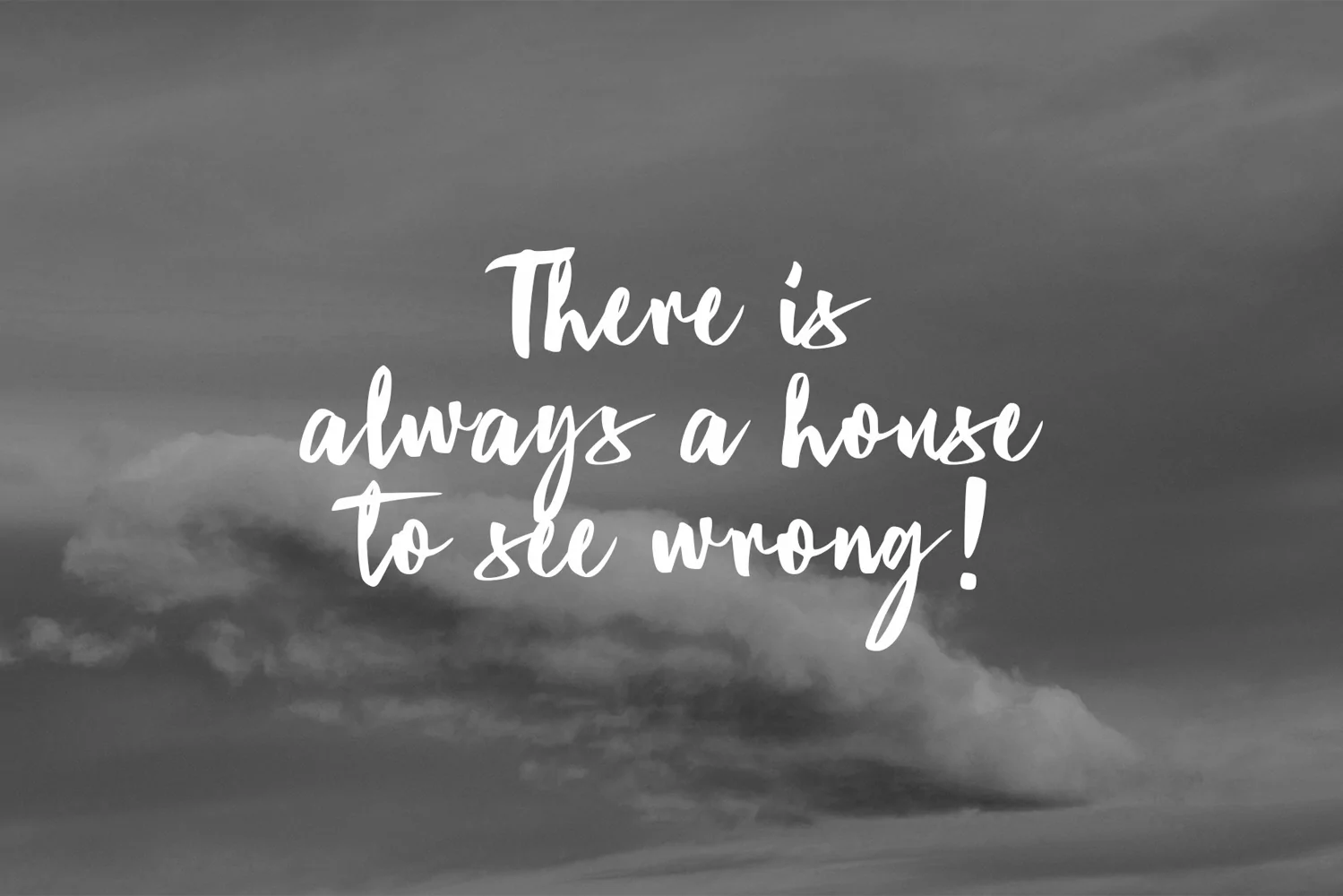
Ablost is a strong original handwritten typeface with a natural, elegant, cursive, legible script and unique feel. This typeface can be used on a wide variety of designs such as branding, posters, invitations, books, headlines, titles, headings, logos and any other creative design.